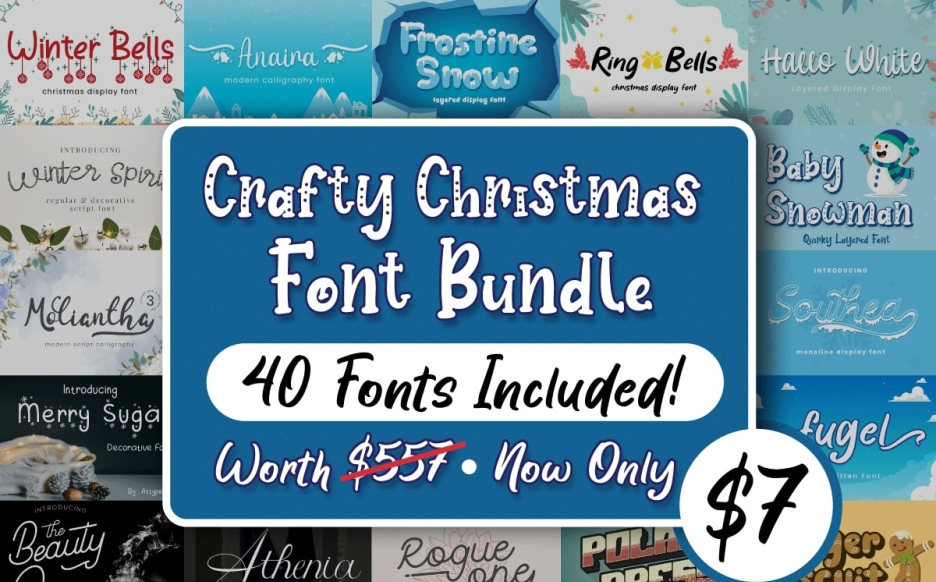
Crafty Christmas Font Bundle
Introducing the Crafty Christmas Font Bundle, a delightful collection of festive typefaces designed to bring a touch of holiday spirit to your projects. This bundle features a variety of font styles, including playful scripts and bold display fonts, perfect for creating unique Christmas cards, invitations, and seasonal branding.
• Multiple font styles: script, serif, and display
• Various weights for added versatility
• Easy to read and visually appealing
• Includes uppercase and lowercase letters, numerals, and special characters
• Ideal for holiday-themed designs, including cards, posters, and social media graphics
• Perfect for branding projects that aim to capture the festive spirit